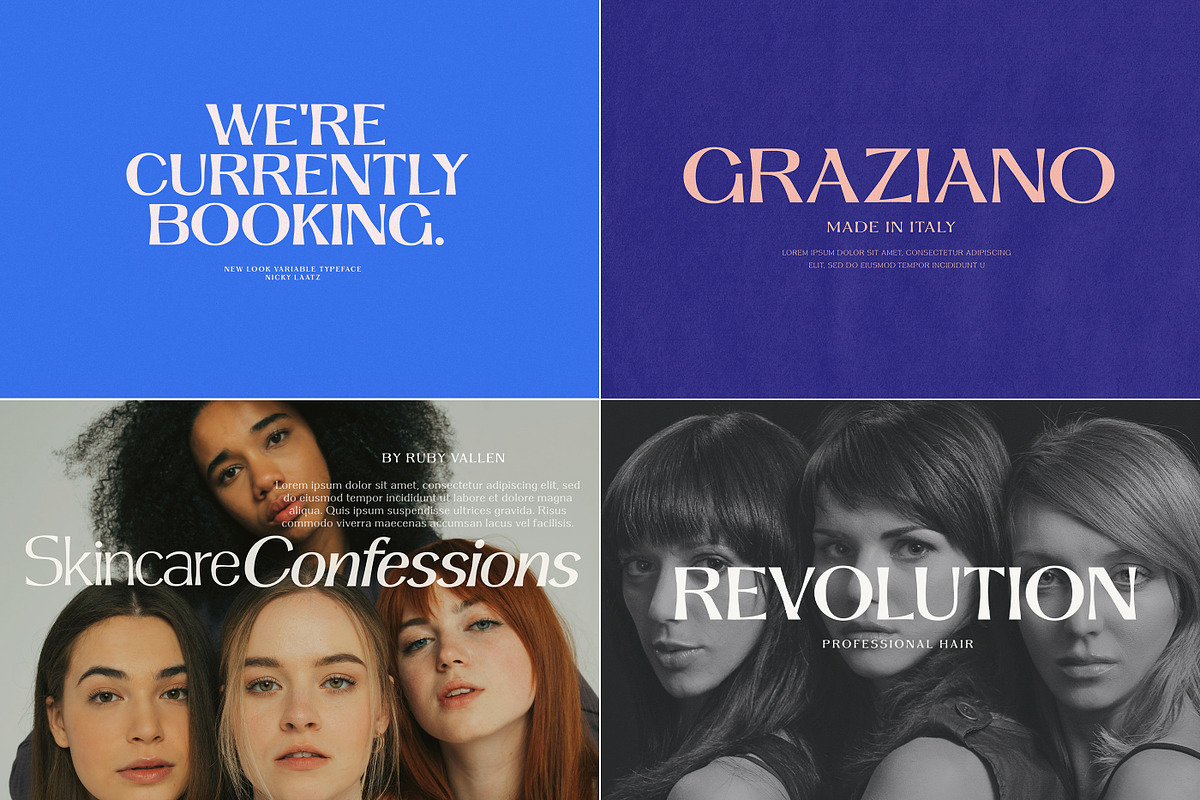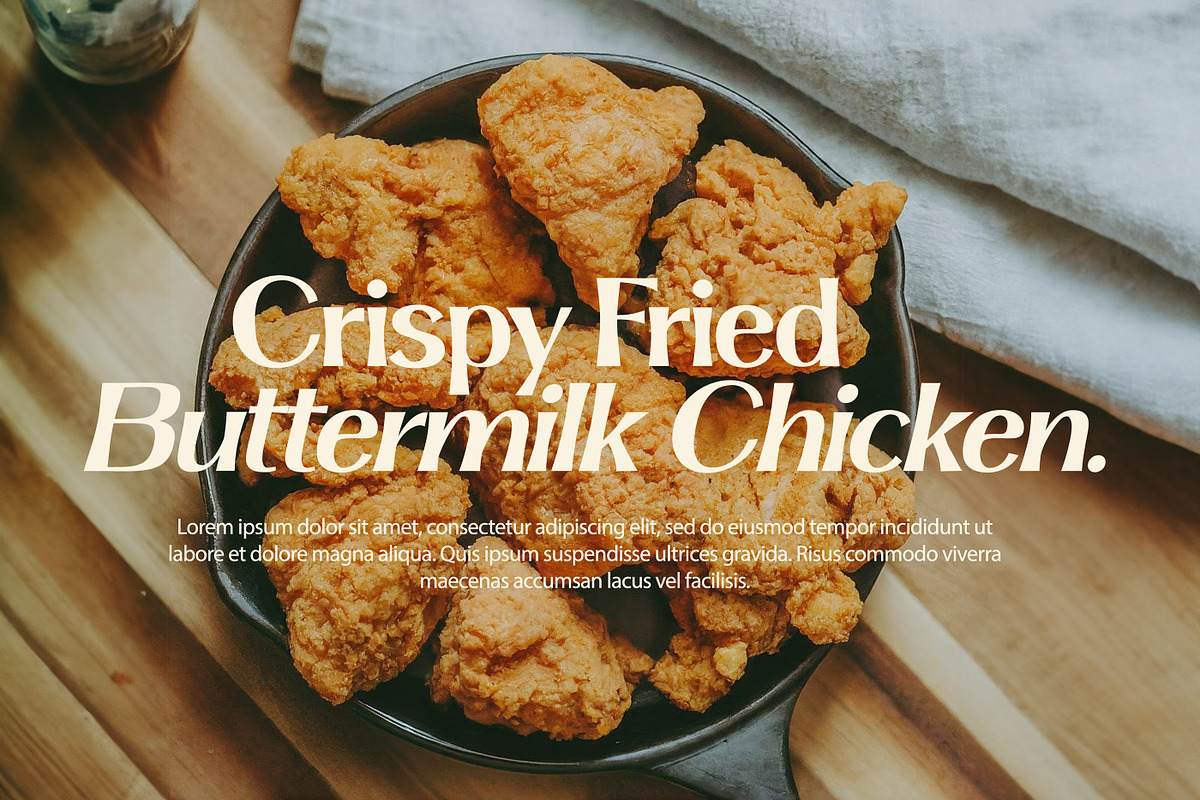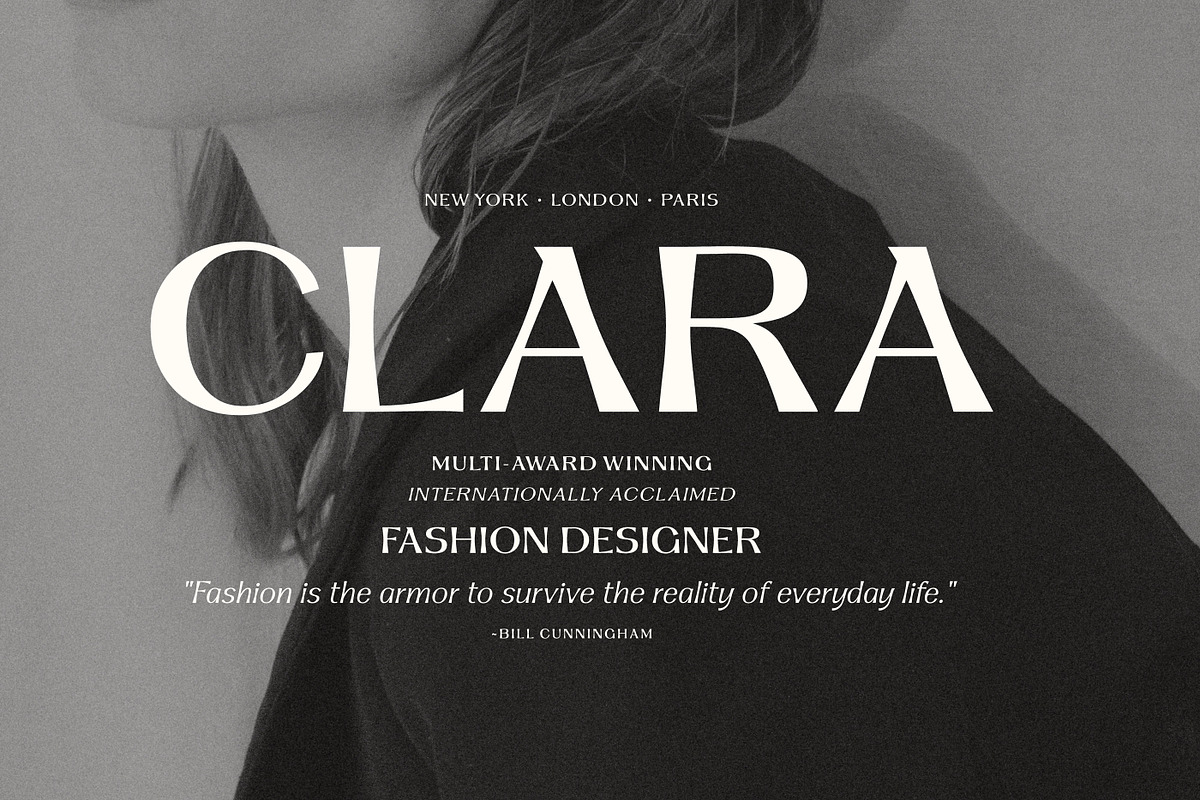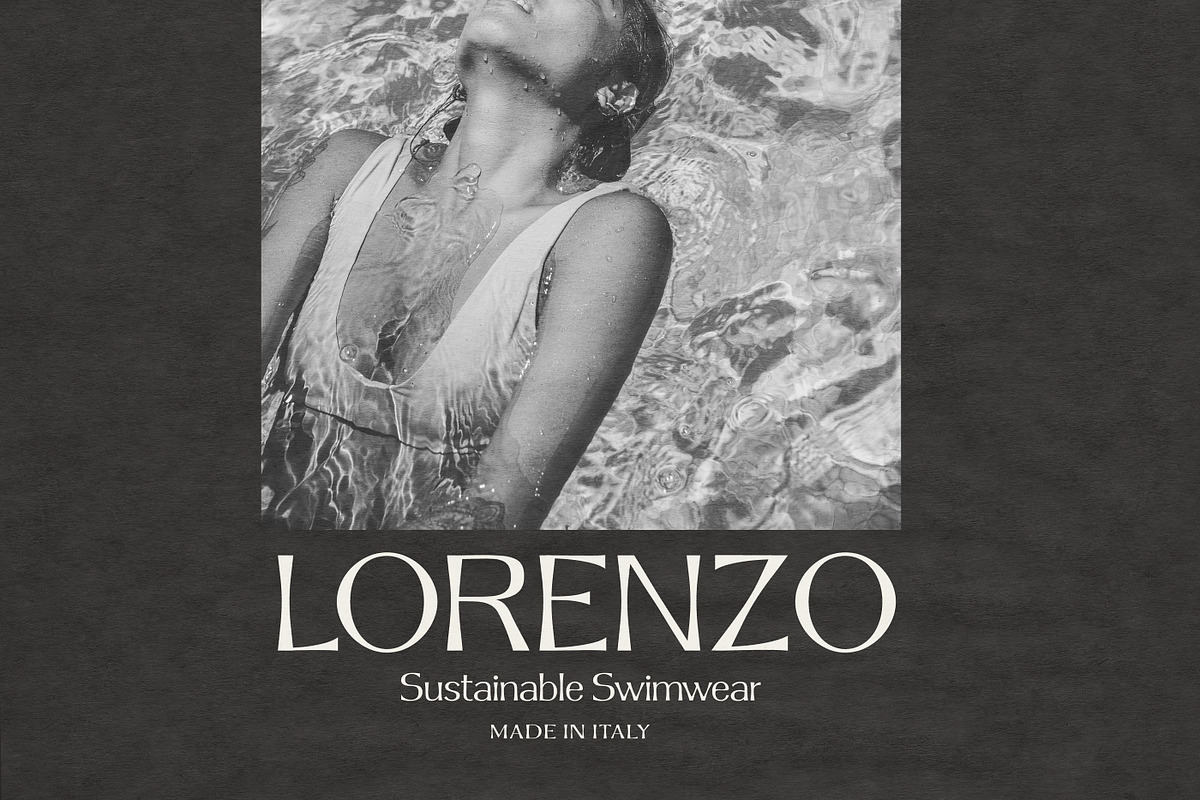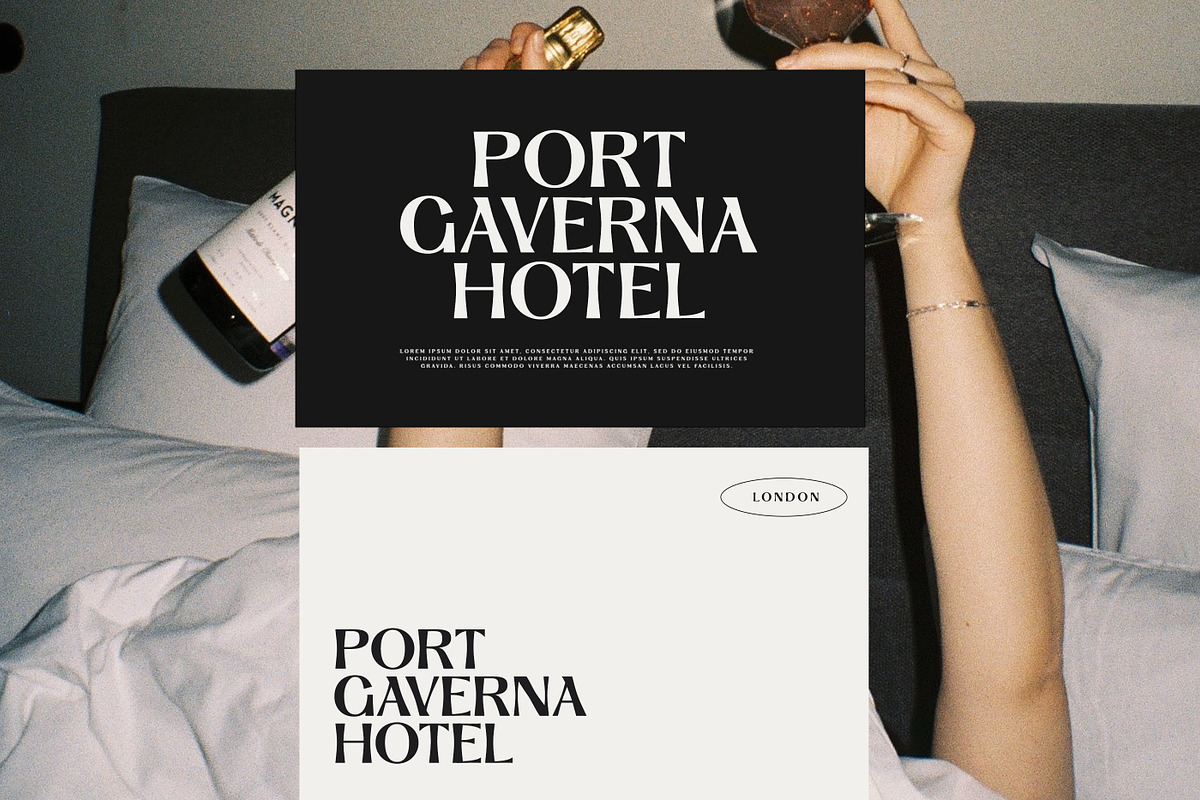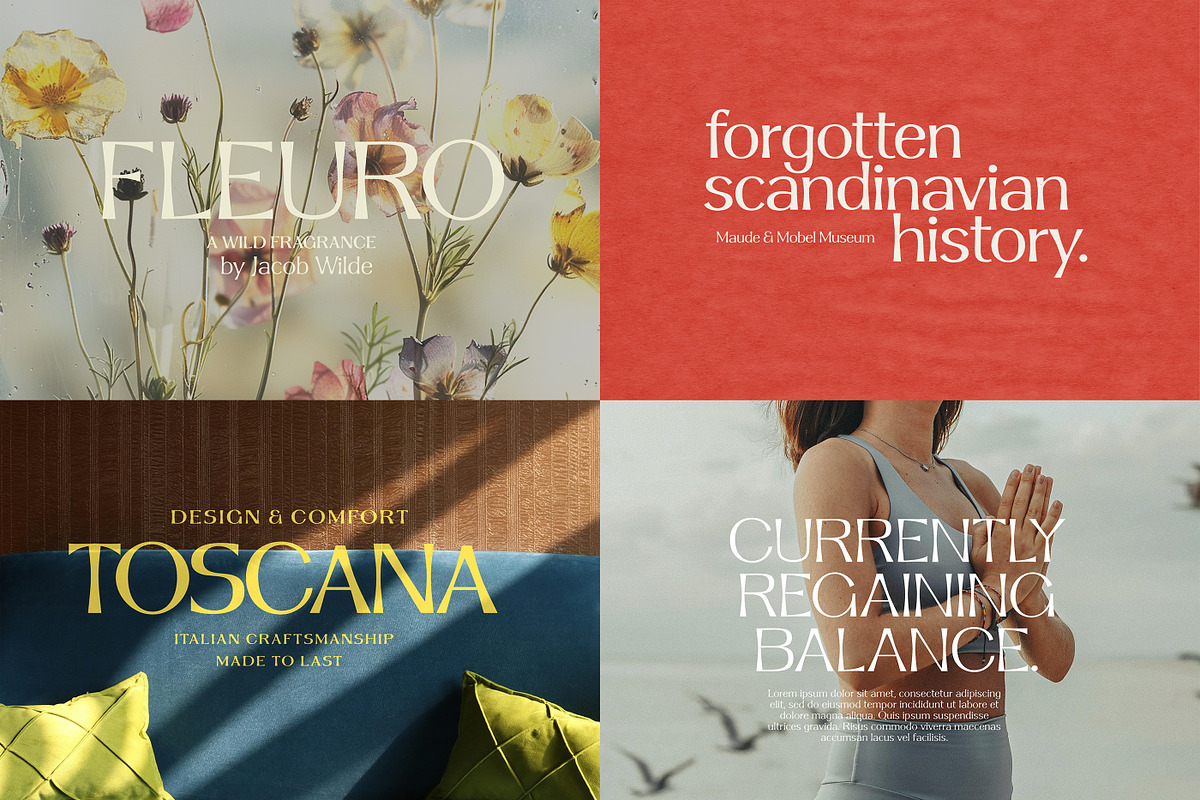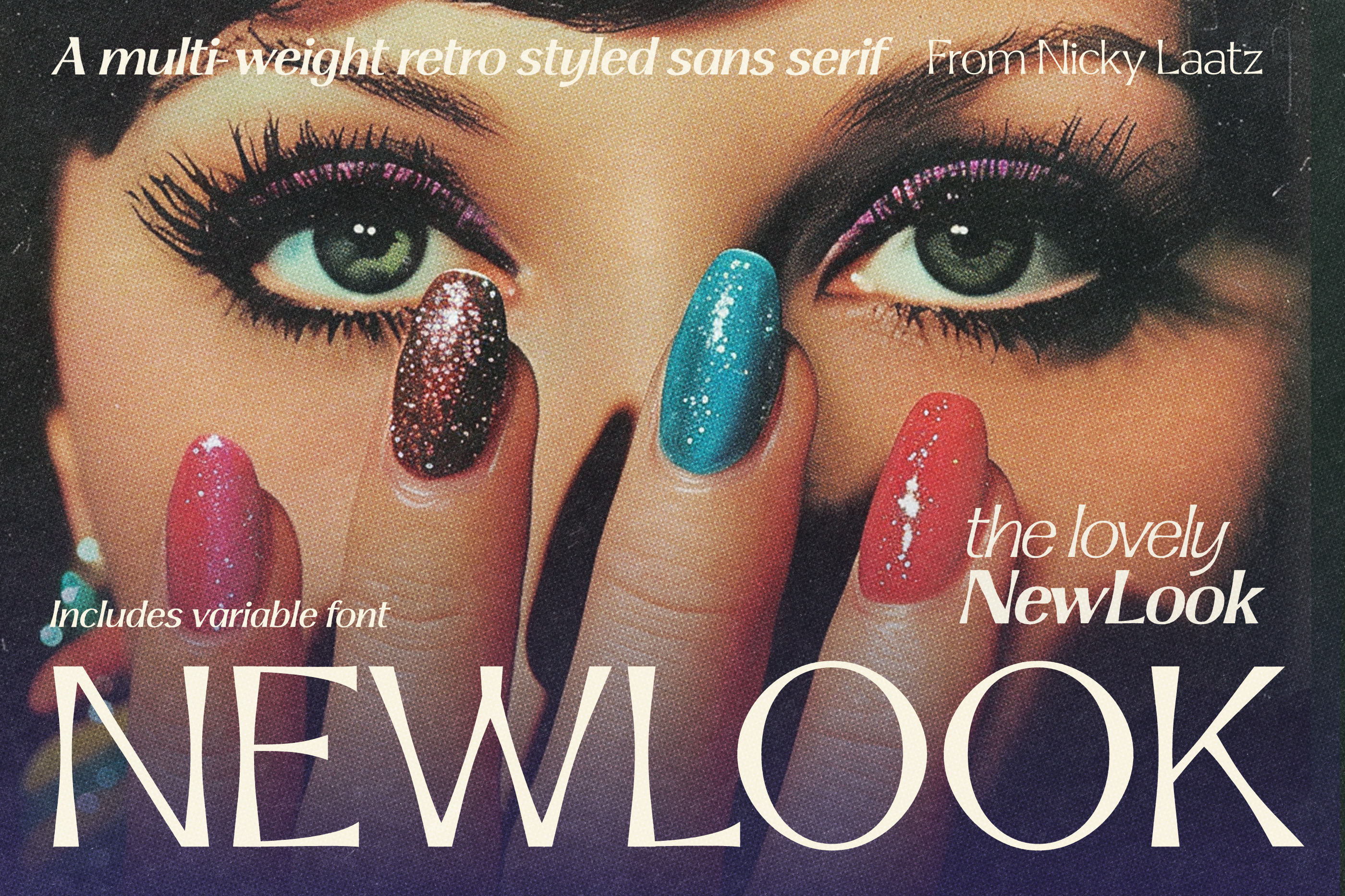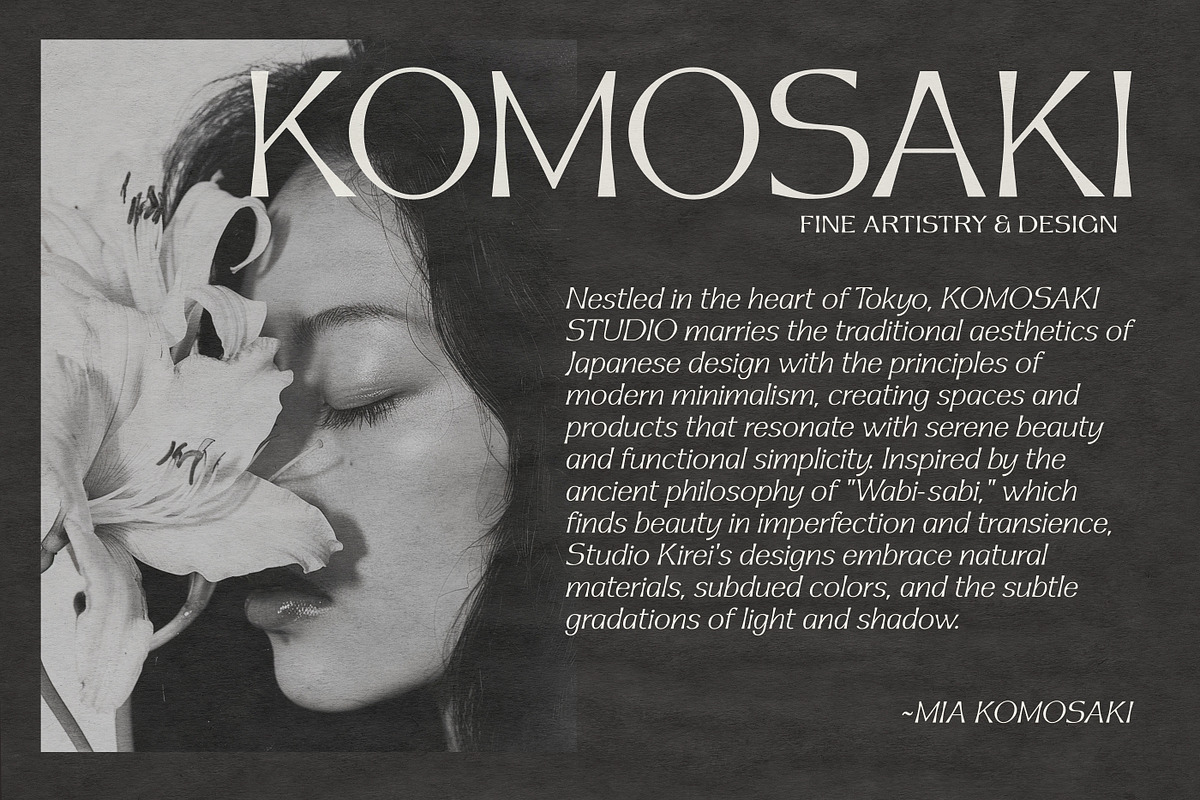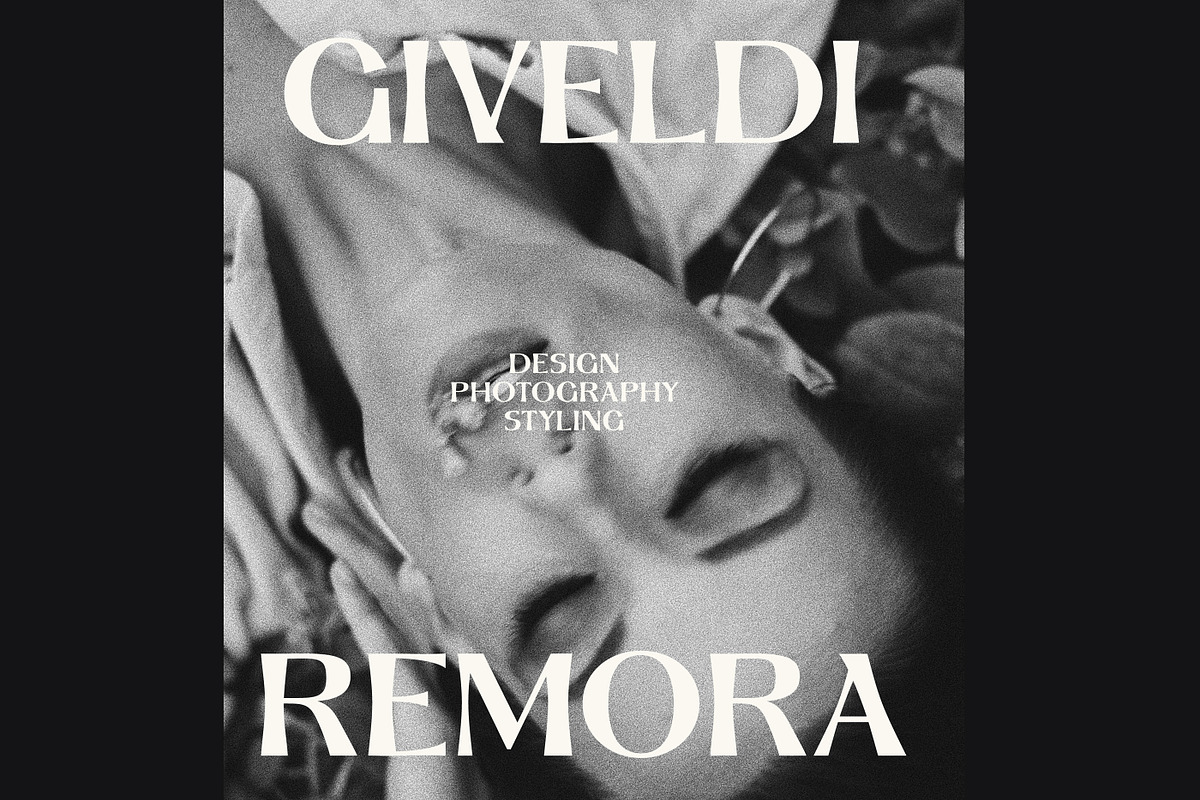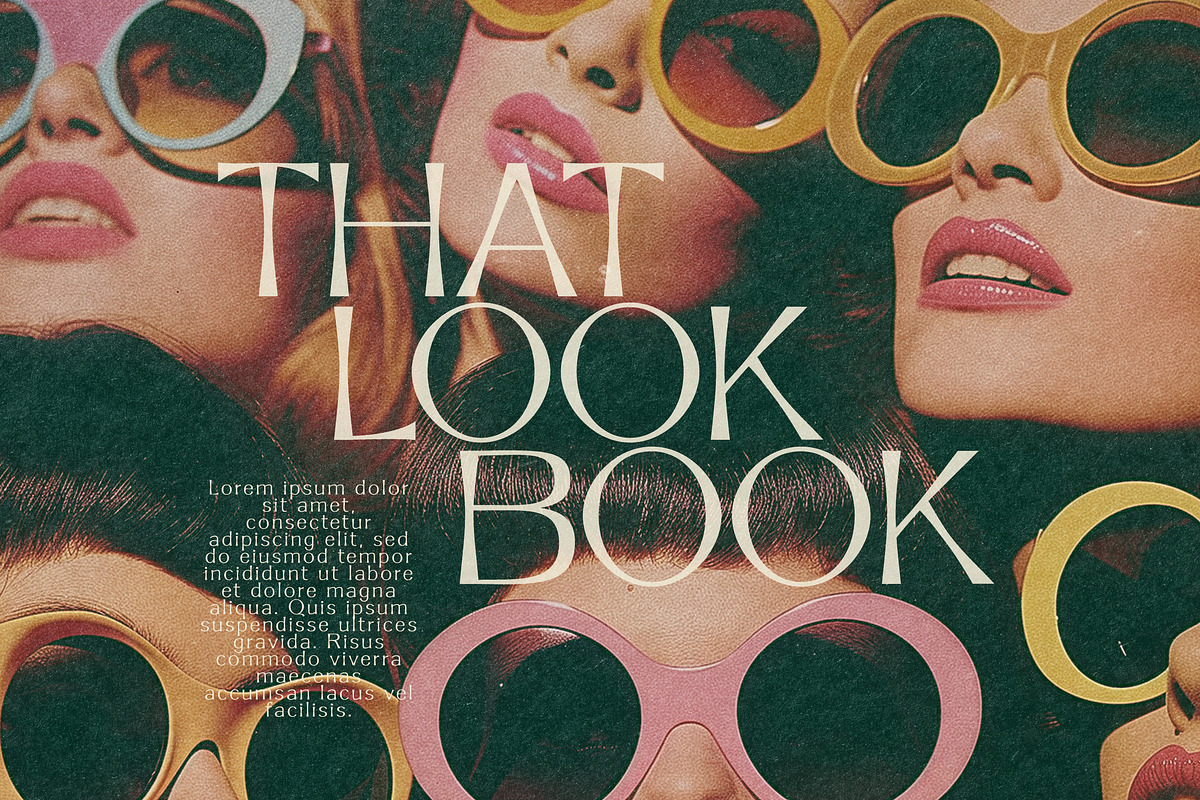
New Look Typeface ( +Variable Fonts)
Say hello to NEW LOOK :) A versatile new sans serif that is contemporary and stylish, but with a touch of retro.
Having a personality to suit a range of needs, she can be bold and cheeky or minimally clean and elegant...whichever you need her to be.
New Look Typeface consists of several weights ranging from Regular to Black, in both a standard and Oblique version. Two variable TTF fonts are included also.
To add to her multiple personalities, she also has a small selection of alternate characters( See preview images) to select from ( These are only accessible Via Opentype features in Apps that support Opentype) .
Weights that are included for regular non-variable fonts : Regular, Semi Bold, Bold, Semi Black, Black. ( 30 fonts in total : 5 fonts in 3 different height options, each as Regular and Oblique )